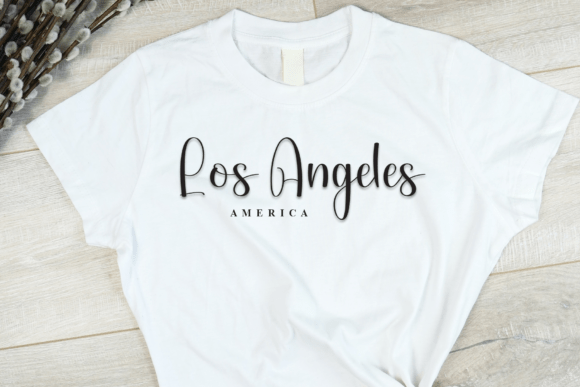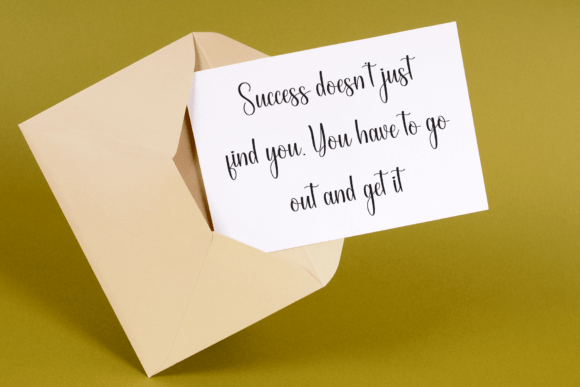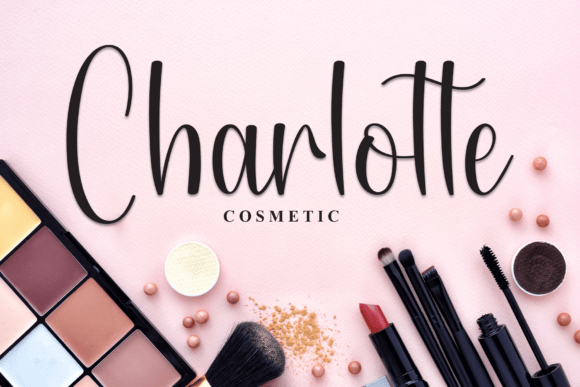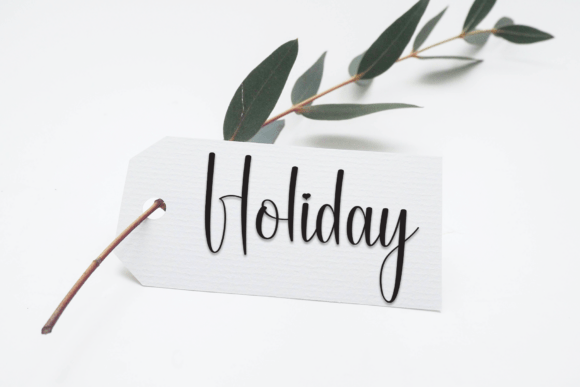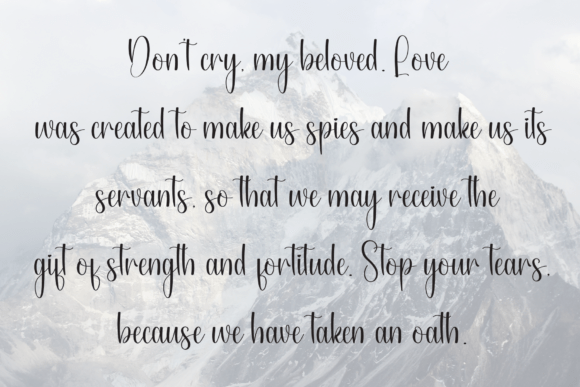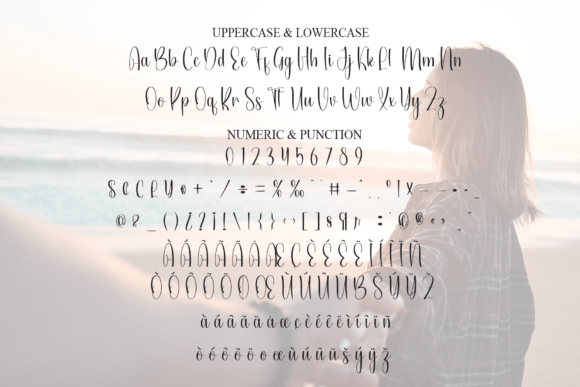
Introduction to Hello Romantic Font Font
Fonts play a crucial role in design, and the Hello Romantic Font font is a typeface that brings both character and versatility to any project. Whether you’re working on a branding project, a website, or a print design, the Hello Romantic Font font offers a unique style that can elevate your work.
Hello Romantic is a stylish handwritten script font that blends modern elegance with a playful touch.
Its fluid strokes and charming curves bring a personal feel to any design Ideal for logos, packaging, and invitations, this typeface adds warmth, sophistication, and creativity to every project.
Key Features of Hello Romantic Font Font
Why Choose Hello Romantic Font Font?
The Hello Romantic Font font is more than just a typeface – it’s a design tool that helps you communicate your message with style and clarity. Its unique character set and versatile design make it suitable for a wide range of applications, from elegant invitations to bold headlines.
With its carefully crafted letterforms and balanced proportions, the Hello Romantic Font font ensures readability and visual appeal across all mediums.
What makes Hello Romantic Font font special?
The Hello Romantic Font font stands out with its unique design, exceptional readability, and versatility across various design applications.